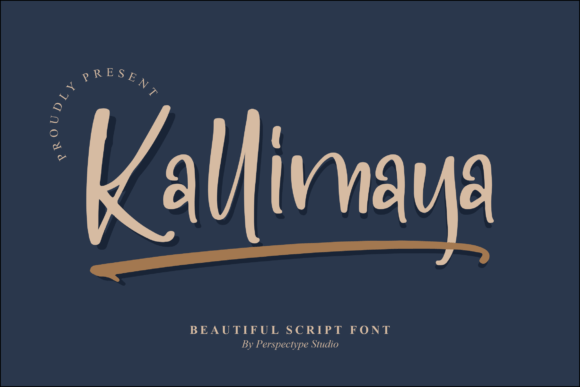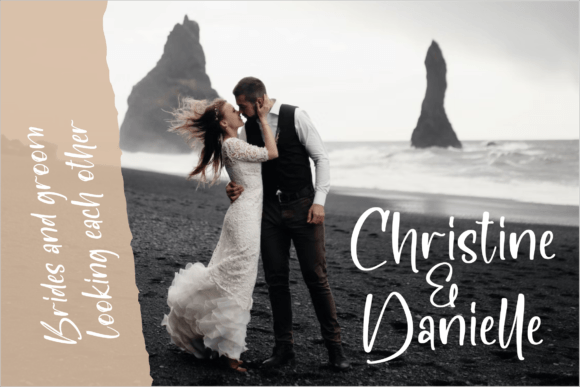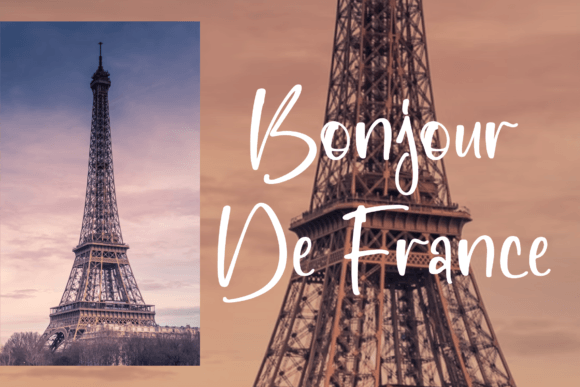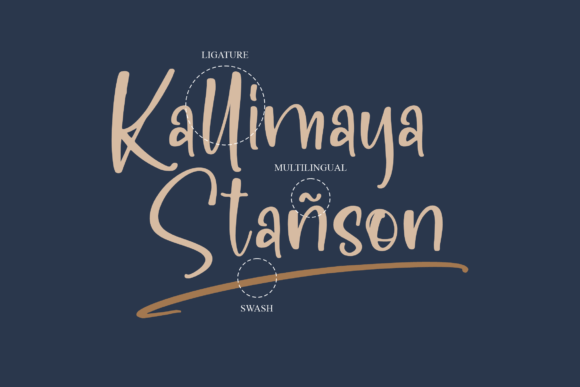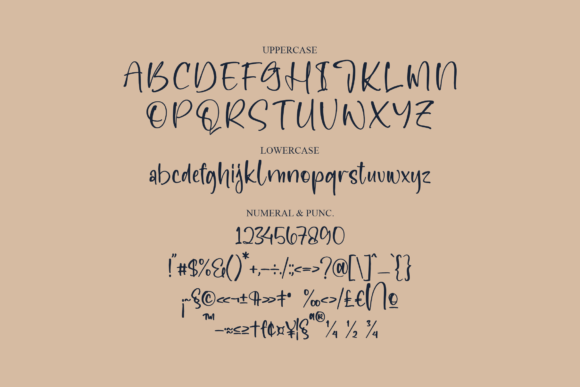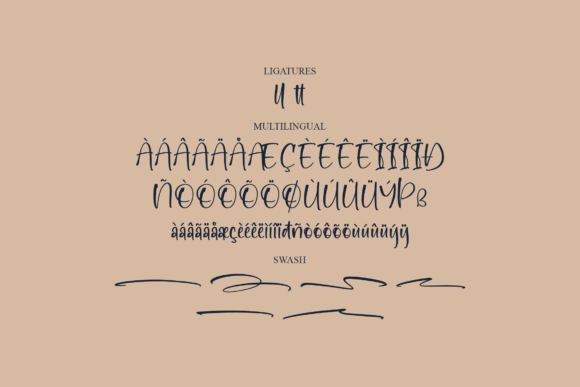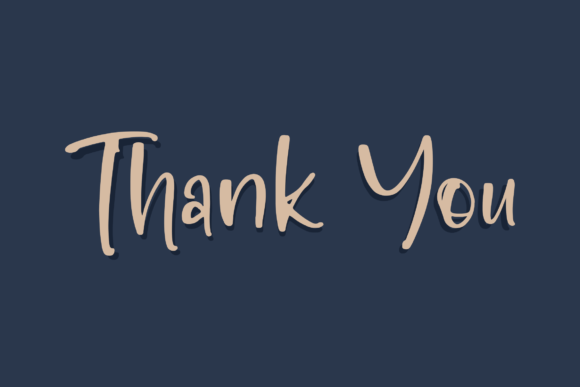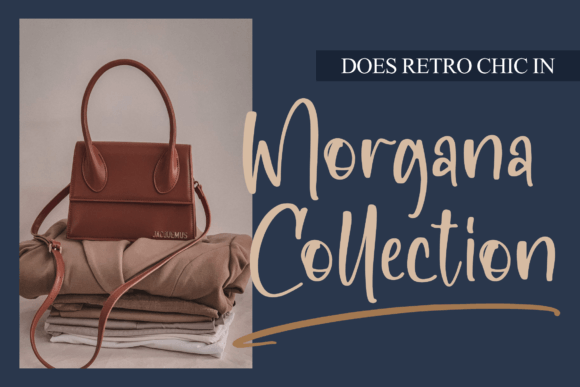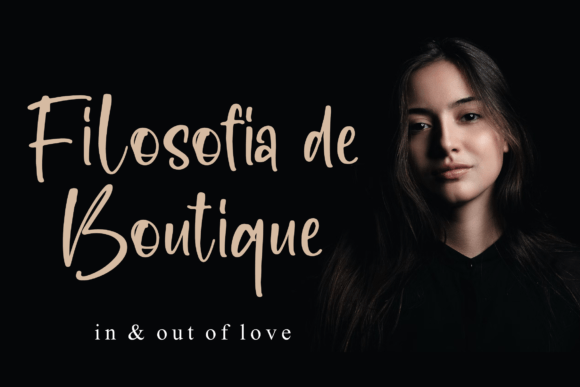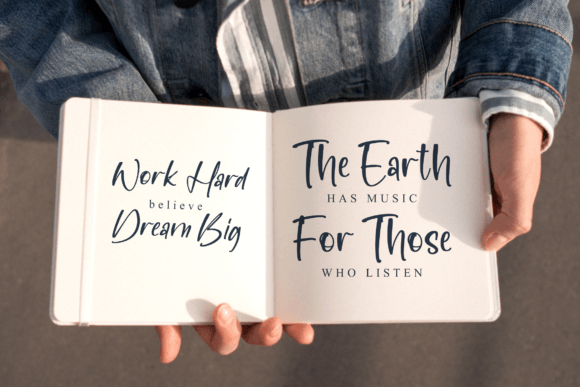
Kallimaya Font
About Kallimaya Font
“Kallimaya” is a beautiful script font that offers a touch of elegance and charm to your design projects. This versatile font is suitable for a wide range of applications, making it a great choice for logos, branding projects, homeware designs, product packaging, quotes, posters, apparel designs, book covers, invitations, greeting cards, labels, photography watermarks, special events, and various other creative endeavors that benefit from a beautiful script style.
The appeal of “Kallimaya” lies in its ability to convey beauty and style. Each character is thoughtfully designed to exude a feeling of sophistication, making it an ideal choice for projects where you want to create a memorable and visually captivating impression. Whether you’re working on digital or print materials, “Kallimaya” offers a versatile and stylish script that adds a touch of elegance to your content.
For branding, product designs, promotional materials, and a wide range of design applications, “Kallimaya” provides the creative freedom to make your projects stand out. Its beautiful script style can enhance the visual appeal of your designs and effectively communicate your message to your audience.
In summary, “Kallimaya” is a valuable font that brings beauty and style to your creative work. Its elegant script style and versatility make it suitable for a variety of applications, and its ability to convey sophistication and charm sets it apart. With “Kallimaya” in your font collection, your design projects will exude a sense of beauty and elegance that leaves a lasting impression.